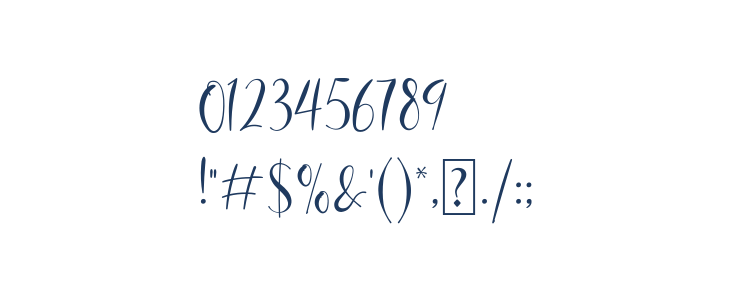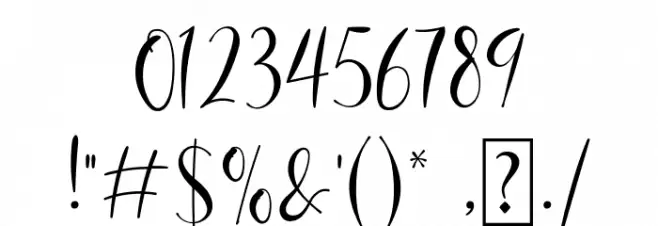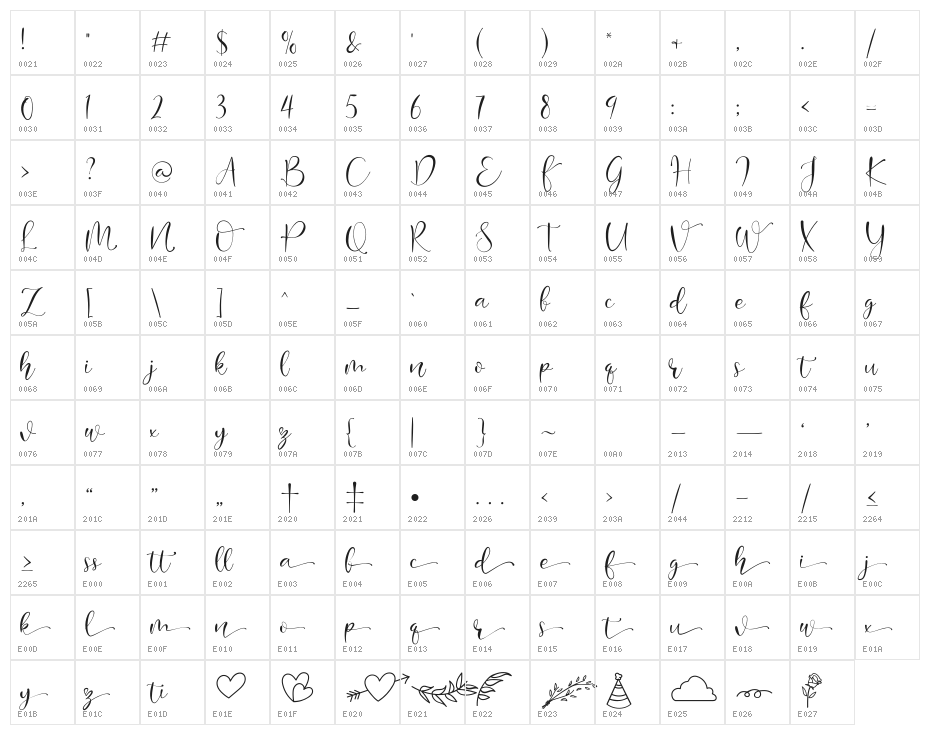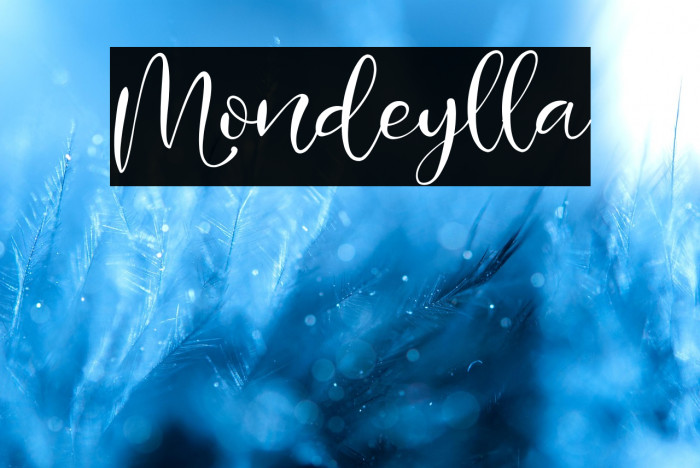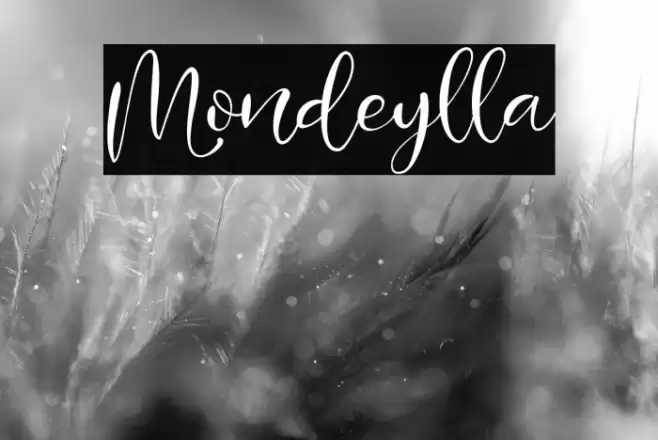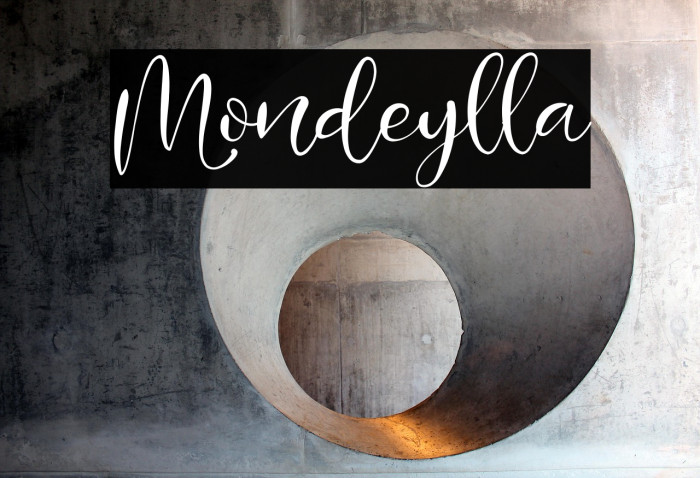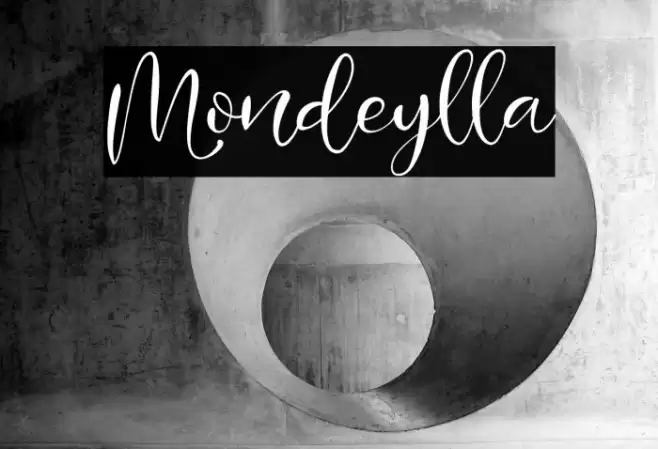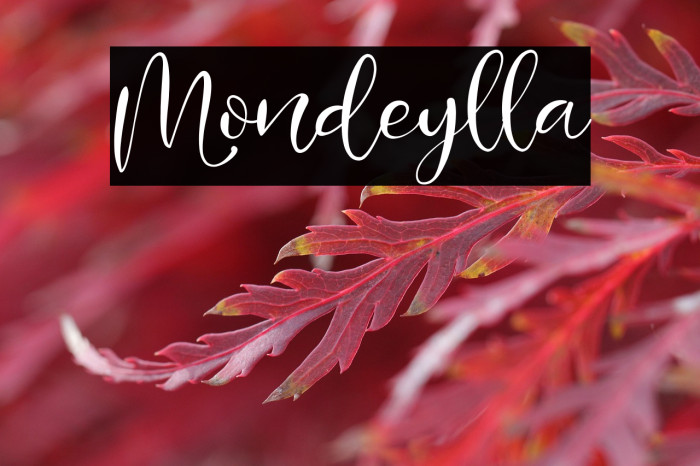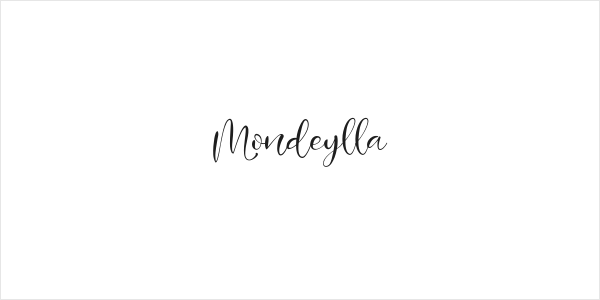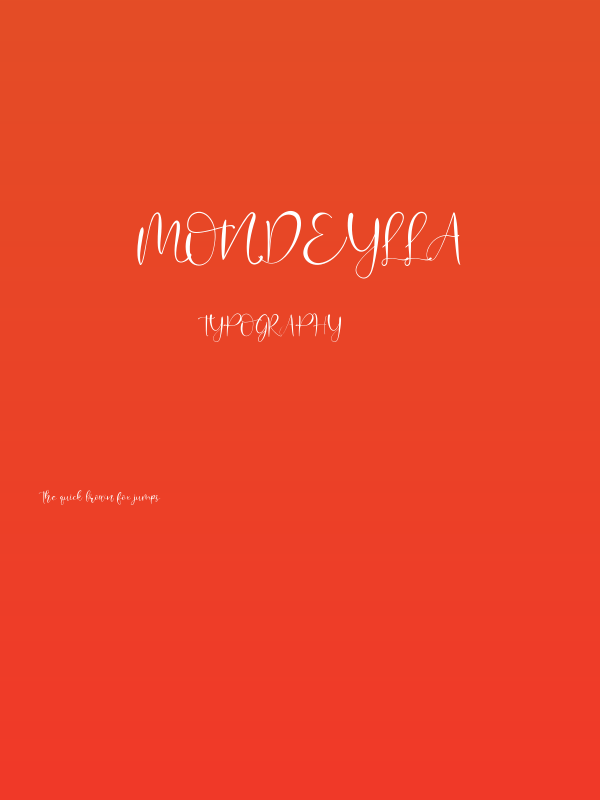
Mondeylla Font
Mondeylla Description
This font exudes a whimsical and elegant charm, characterized by its flowing, cursive script style. The letters are interconnected with graceful loops and swirls, giving it a handwritten feel. The uppercase letters are tall and slender, with a playful bounce that adds a dynamic rhythm to the text. The lowercase letters maintain a consistent flow, enhancing readability while preserving the artistic flair. Numbers and special characters are crafted with the same attention to detail, ensuring a cohesive look across all elements. This font is perfect for projects that require a touch of sophistication and creativity.